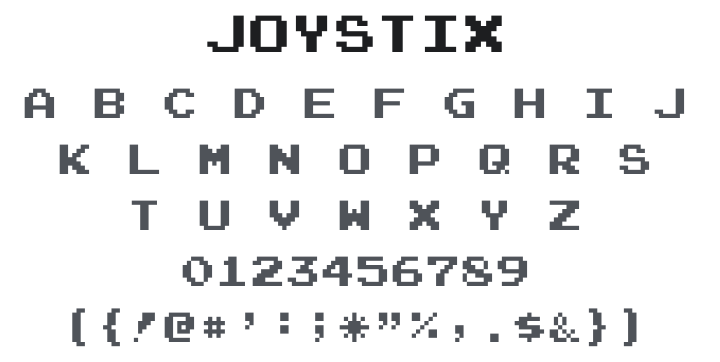
Joystix Font
About Joystix
Joystix revives the pixel-built lettering of classic arcades with sharper geometry and modern spacing for cleaner readability. Its bold, blocky forms and angular diagonals capture the unmistakable spirit of early video games while fitting seamlessly into contemporary layouts. Ideal for esports branding, synthwave visuals, posters, or digital interfaces, it delivers nostalgia with precision. Supporting Latin, Greek, Cyrillic, and Vietnamese scripts, Joystix brings global reach to retro-inspired design, 8-bit energy refined for the modern age.